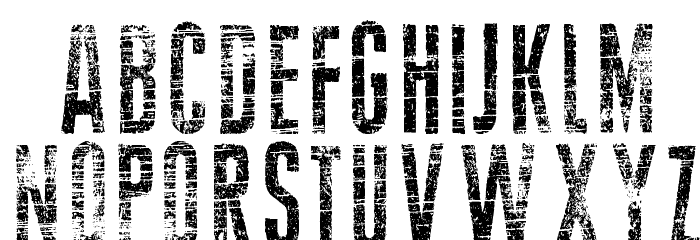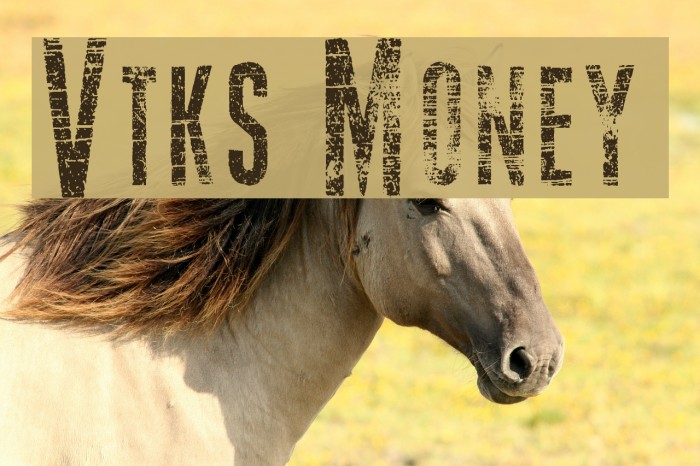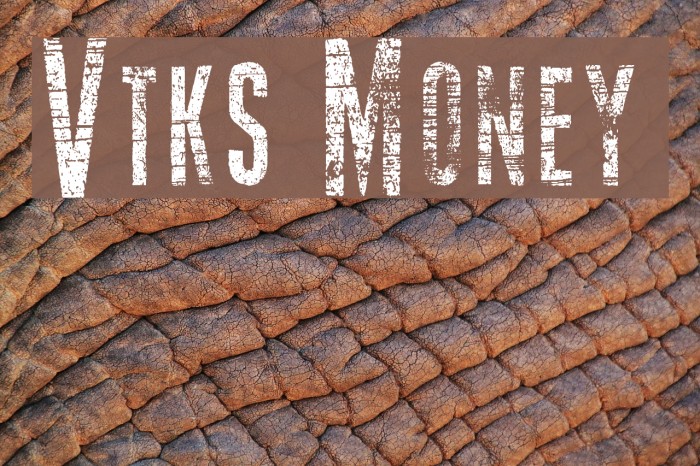
Vtks Money 2 Font
This font features a bold, distressed style with a grunge texture that gives it a worn, vintage appearance. The uppercase letters are prominently displayed with a rough, textured finish that suggests a sense of age and ruggedness. The characters are tall and narrow, with a consistent width that maintains readability despite the heavy texture. The font lacks lowercase letters and numerals, focusing instead on a strong, impactful uppercase set. The distressed effect varies across each letter, adding a unique character to each one. This style is particularly suited for projects that require a bold, eye-catching display with a touch of vintage or industrial flair.
A bold, distressed font with a vintage, grunge texture.
- Proposed Projects: Ideal for posters, album covers, branding, and any design needing a rugged, vintage look.
- Overall Style: Vintage